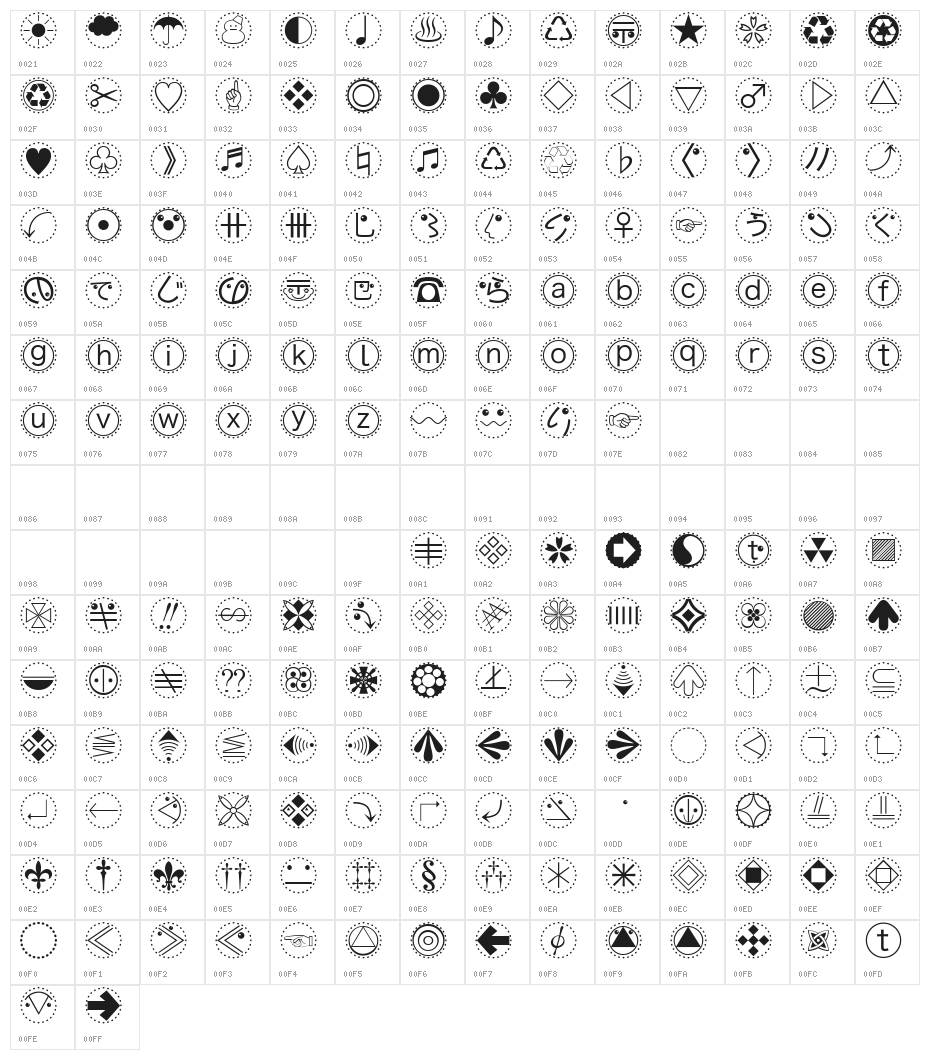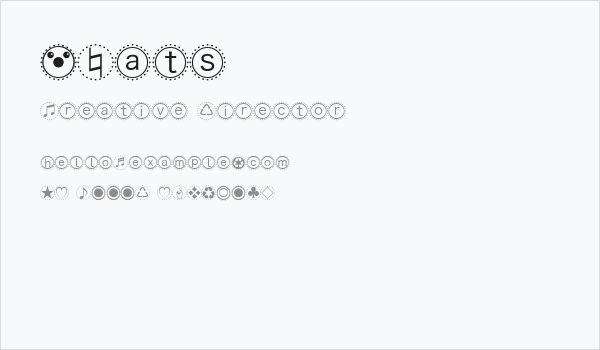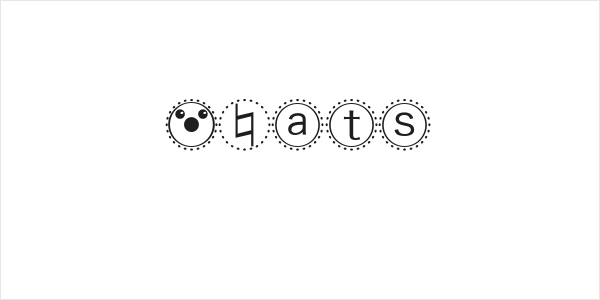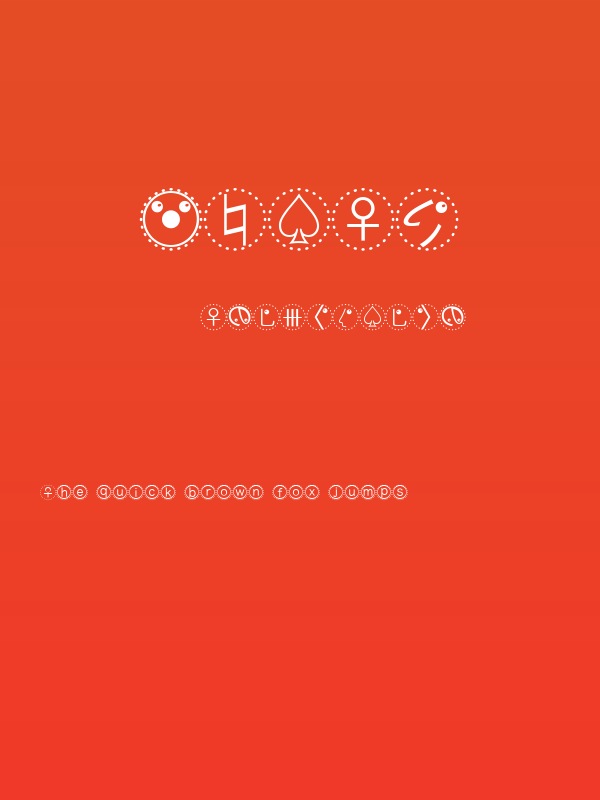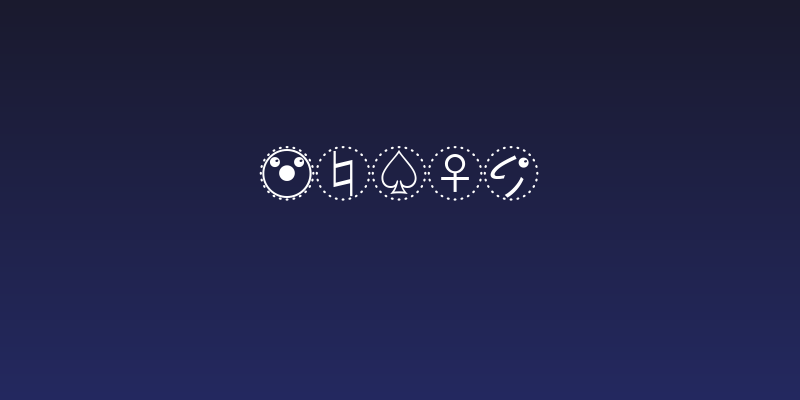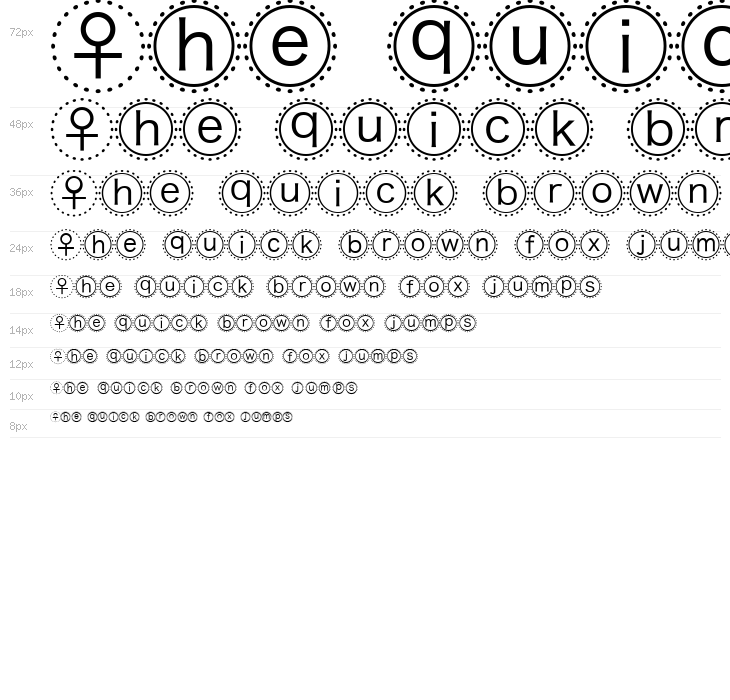
MBats Font
MBats Description
This typeface is a decorative and playful design featuring each character enclosed within a dotted circle. The uppercase and lowercase letters are simple and sans-serif, providing a clean and modern look. The unique aspect of this font is the inclusion of various symbols and icons, such as musical notes, arrows, and recycling symbols, which add a whimsical and creative touch. The consistent use of dotted circles around each character and symbol creates a cohesive and unified appearance, making it suitable for projects that require a fun and engaging aesthetic.
| Overall Style | Playful, Whimsical |
| Use Case | Logos, Posters, Creative Projects |
| Proposed Projects | Ideal for children's books, playful branding, creative posters, and educational materials. |